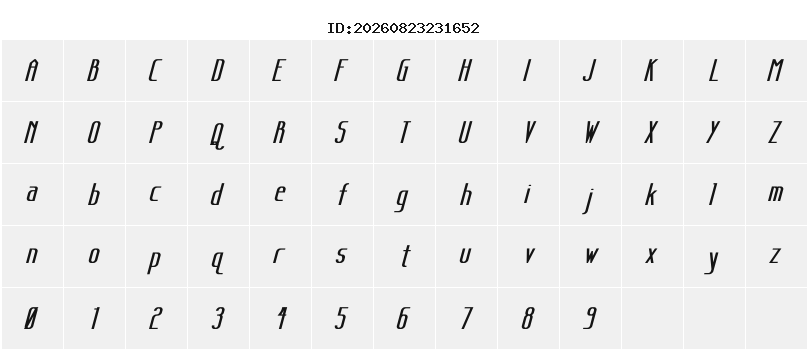
Sanity Preview
• Font Name: Sanity
• Font ID: Sanity Bold Italic
• Full Font Name: Sanity Bold Italic
• PostScript Name: SanityBoldItalic
About Sanity.ttf
Sanity.ttf is a modern, elegant sans-serif font designed for ultimate readability and visual harmony. Perfect for branding, headlines, web design, and print materials.